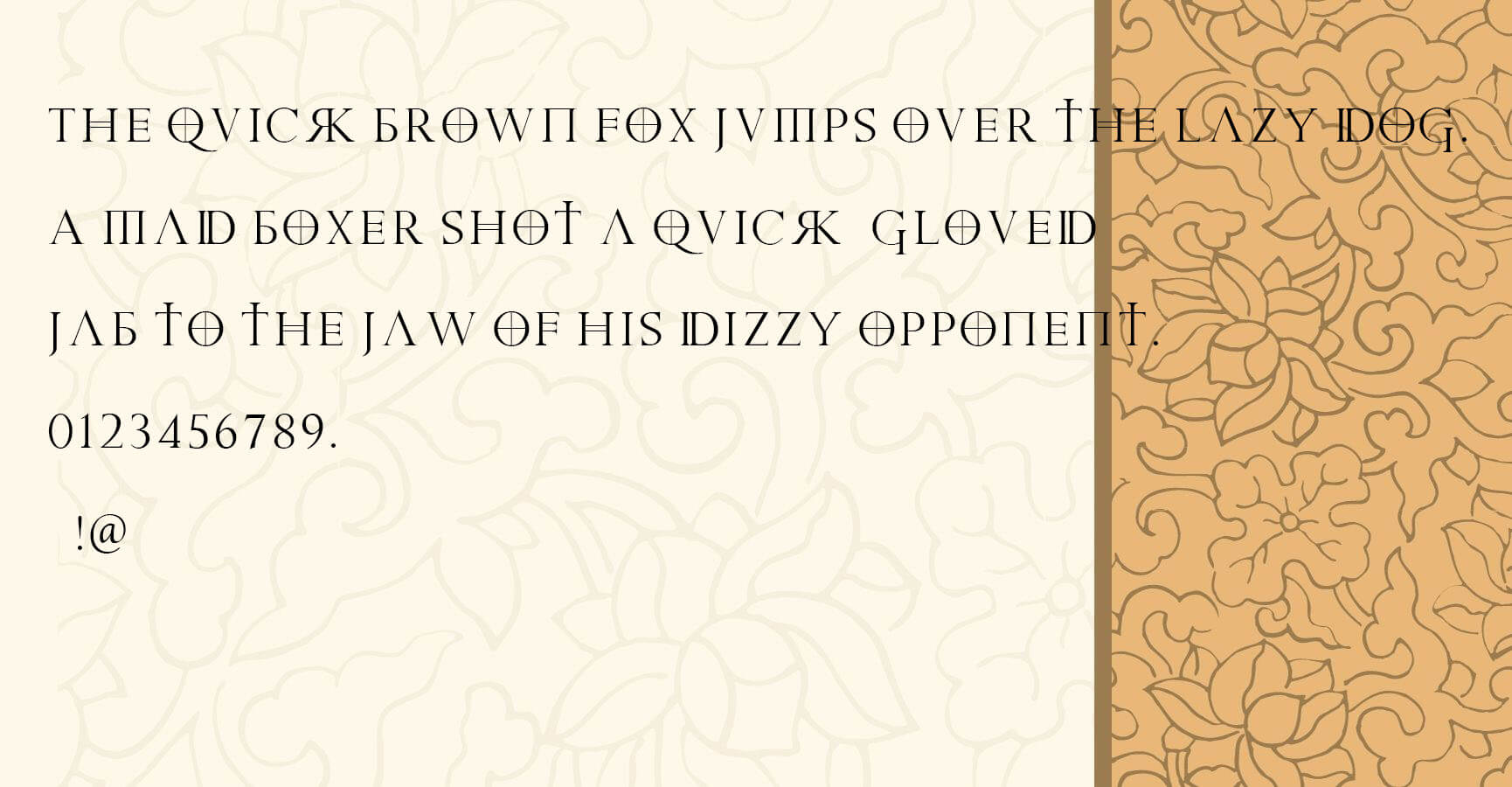
We are about to present before you the sans-serif typeface that was designed by Sharkshock known as the Praetoria Font. This typeface is basically inspired by Roman capital letters.
The lowercase letters of this typeface have some huge changes from the uppercase letters. The basic reason for the development of this typeface is to provide the design much more visible and clear look.
View of Praetoria Font
Name | Praetoria Font |
Style | Sans Serif |
Designer | Sharkshock |
What Type of Font Is Praetoria?
Praetoria is the sans-serif typeface that was designed by Sharkshock.
What’s the Closest Font to Praetoria?
The Forum font is very close to the Praetoria font.
Praetoria Font is the roman typeface which is famous for its bold weight. This numeral font is great for its text generation function.